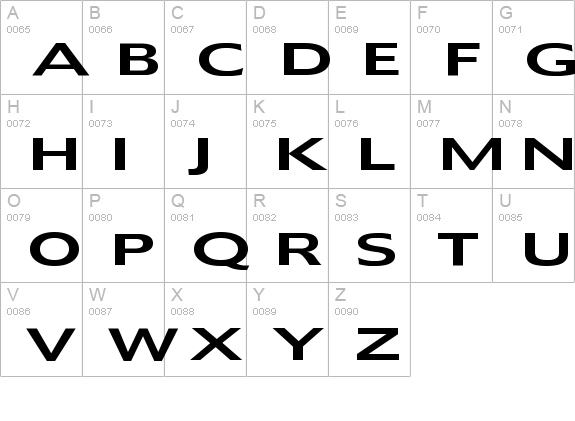
Humana Ex Font Details
Humana Ex font is a timeless and elegant typeface that exudes sophistication and clarity. With its clean lines and modern aesthetic, this font is perfect for a wide range of design projects, from branding to editorial layouts. The versatility of Humana Ex makes it a popular choice among designers looking for a classic yet contemporary font. What sets Humana Ex apart is that it is not only visually appealing but also easily accessible. This high-quality font is available for free download at FontsMarket.com, making it a convenient choice for both personal and commercial use. Whether you're creating a logo, website, or print materials, Humana Ex offers a professional touch that will elevate your designs to the next level. Experience the beauty and functionality of Humana Ex font today by downloading it for free at FontsMarket.com. Unlock endless possibilities for your design projects with this versatile and stylish typeface that is sure to make a lasting impression.